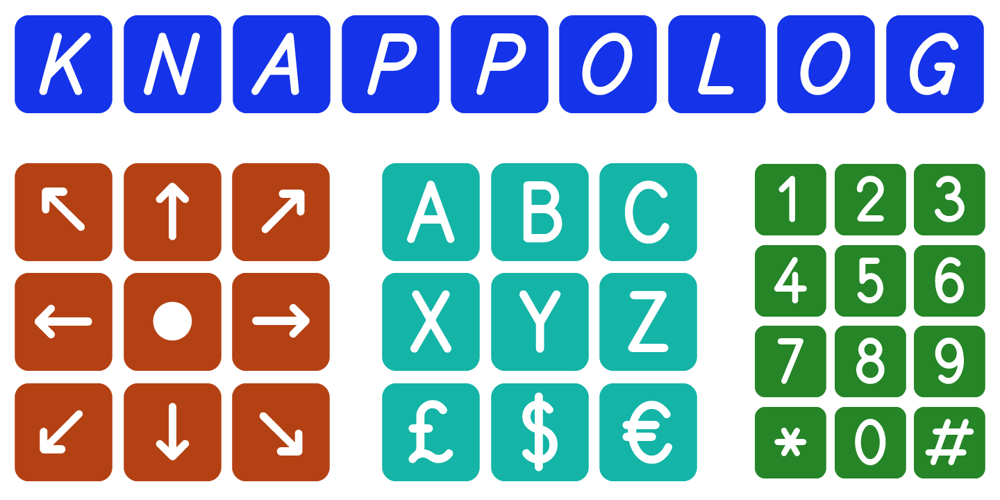
Knappolog Font Family was designed by Lars Törnqvist and published by Cercurius. Knappolog contains 2 styles and family package options. Negative sans-serif capitals in squares with rounded corners, looking like tiles, pushbuttons or computer keys. The font can be used for logos, signs and labels, and for markings on maps and charts.